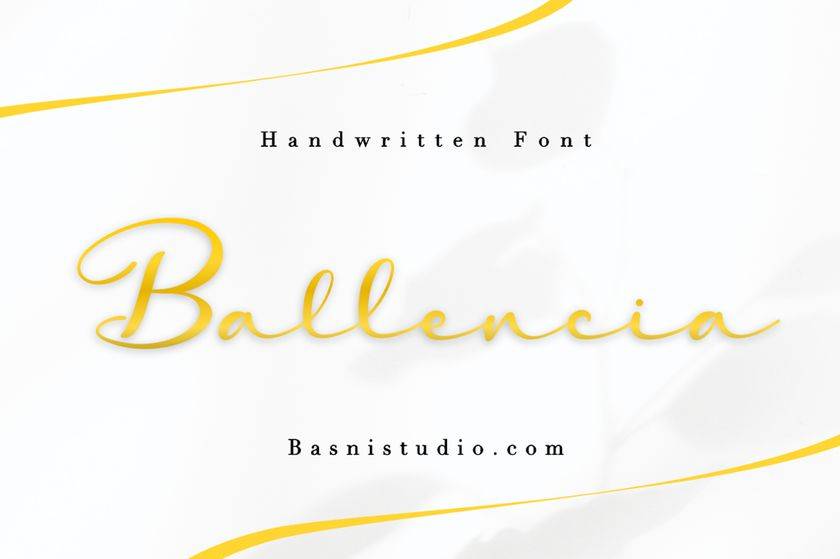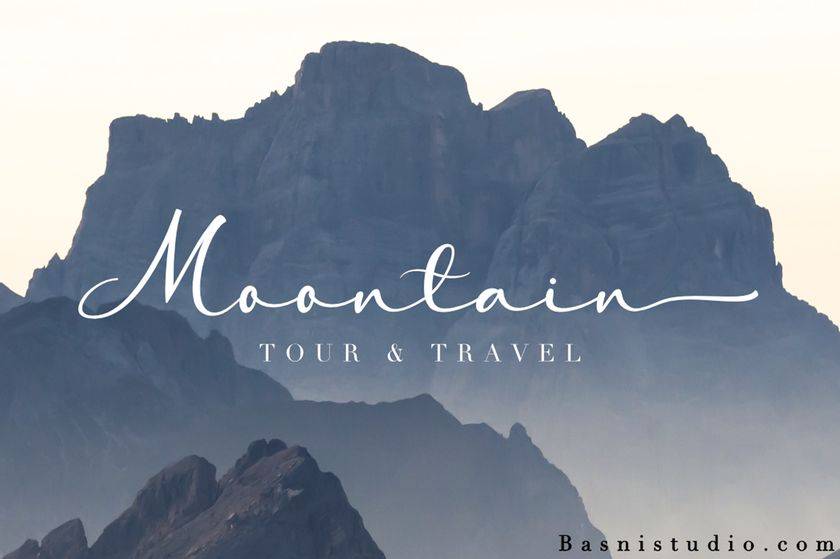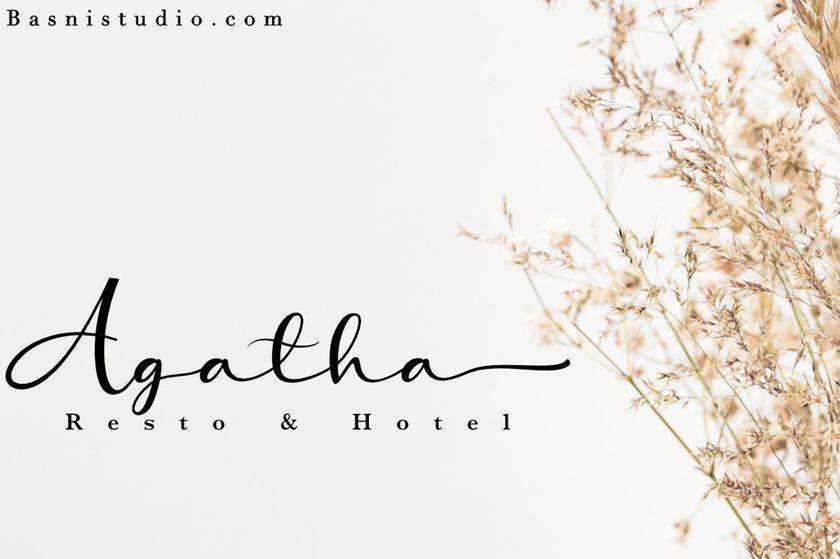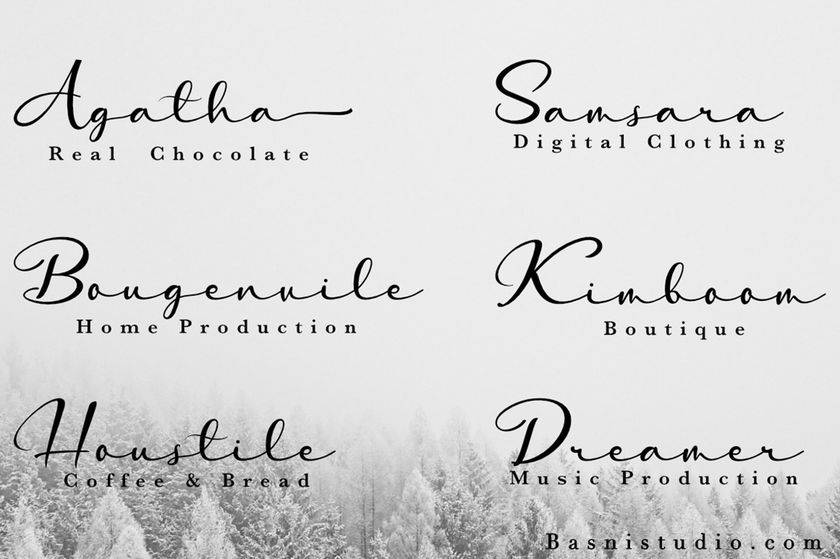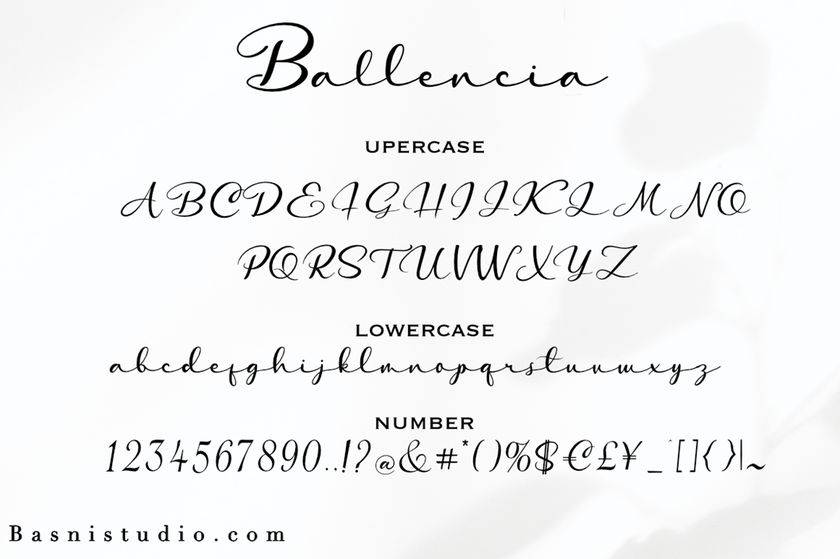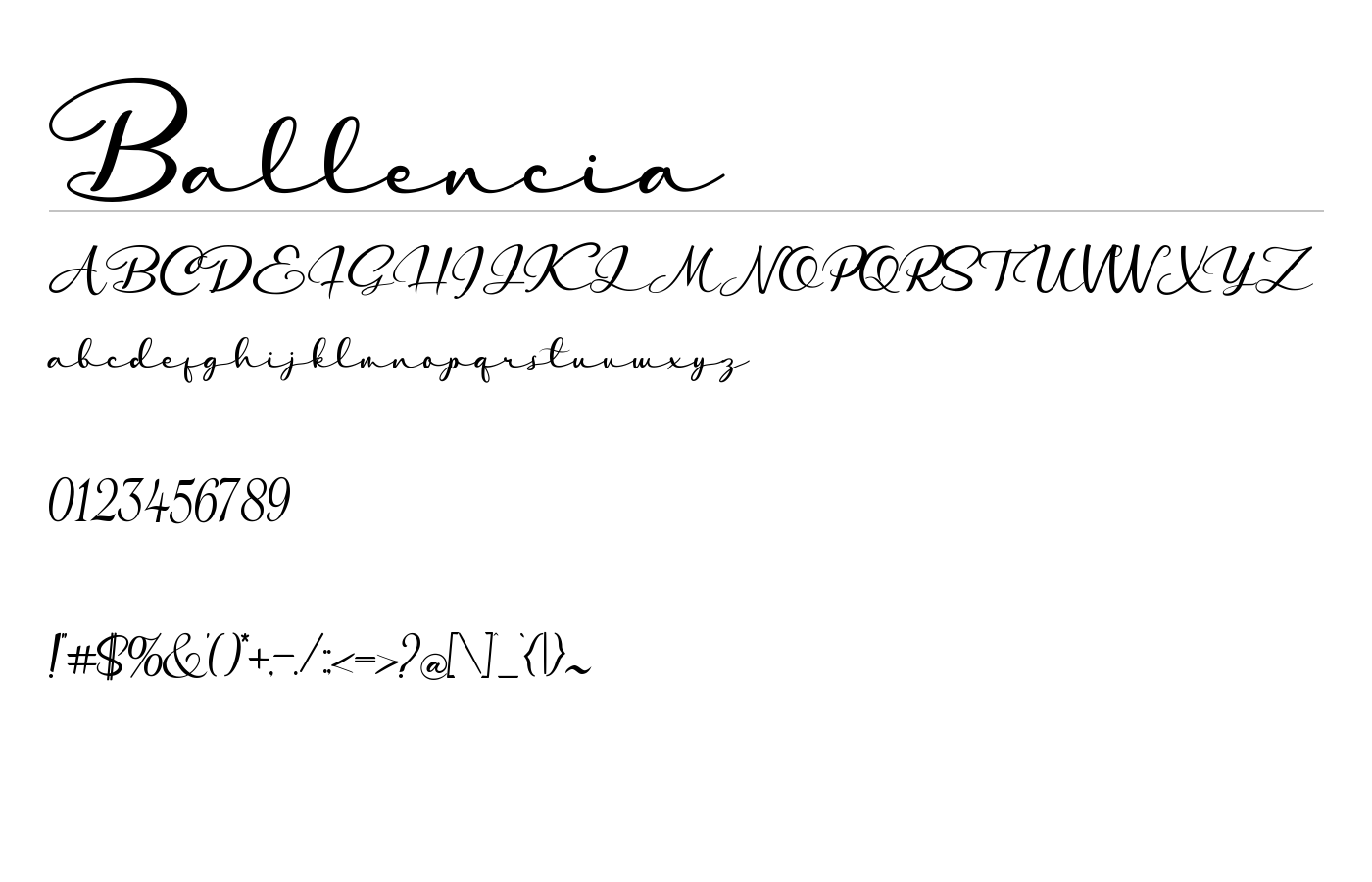
Ballencia is an elegant script font characterized by its flowing, graceful strokes and fine, delicate lines, giving it a refined and sophisticated feel. Its tall, slender letterforms and cursive style with subtle flourishes make it ideal for luxury branding, wedding invitations, and stylish editorial designs where a touch of classic charm and femininity is desired. This font works beautifully in settings that require a personal, handwritten look with a polished, high-end appearance.
Ballencia Font
About Ballencia Font